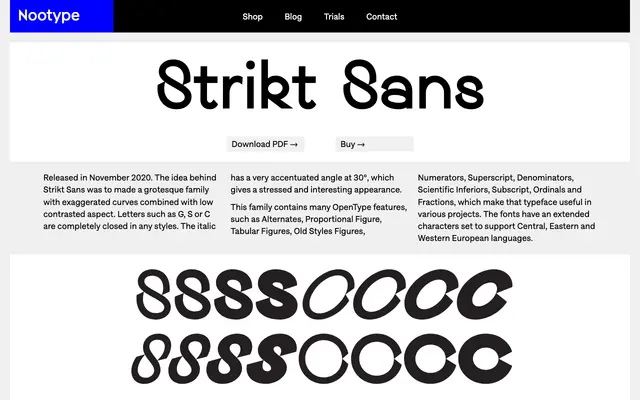
Strikt Sans
Nootype · 2020
A grotesque sans with exaggerated closed curves and a sharply angled 30° italic, released by Nootype in 2020.
Strikt Sans takes the grotesque tradition and pushes it toward tighter, more enclosed letterforms: G, S and C are fully closed across all styles, giving the family a distinctive density. The italic cuts in at an accentuated 30° angle, producing a stressed, energetic feel rather than a polite slope. Four weights from Regular to Black each have italic companions, and the character set covers Central, Eastern and Western European languages with a full suite of OpenType figure styles and fractions.
Described explicitly as a grotesque family with low contrast and exaggerated curves; closed apertures on G, S and C reinforce the grotesque classification.